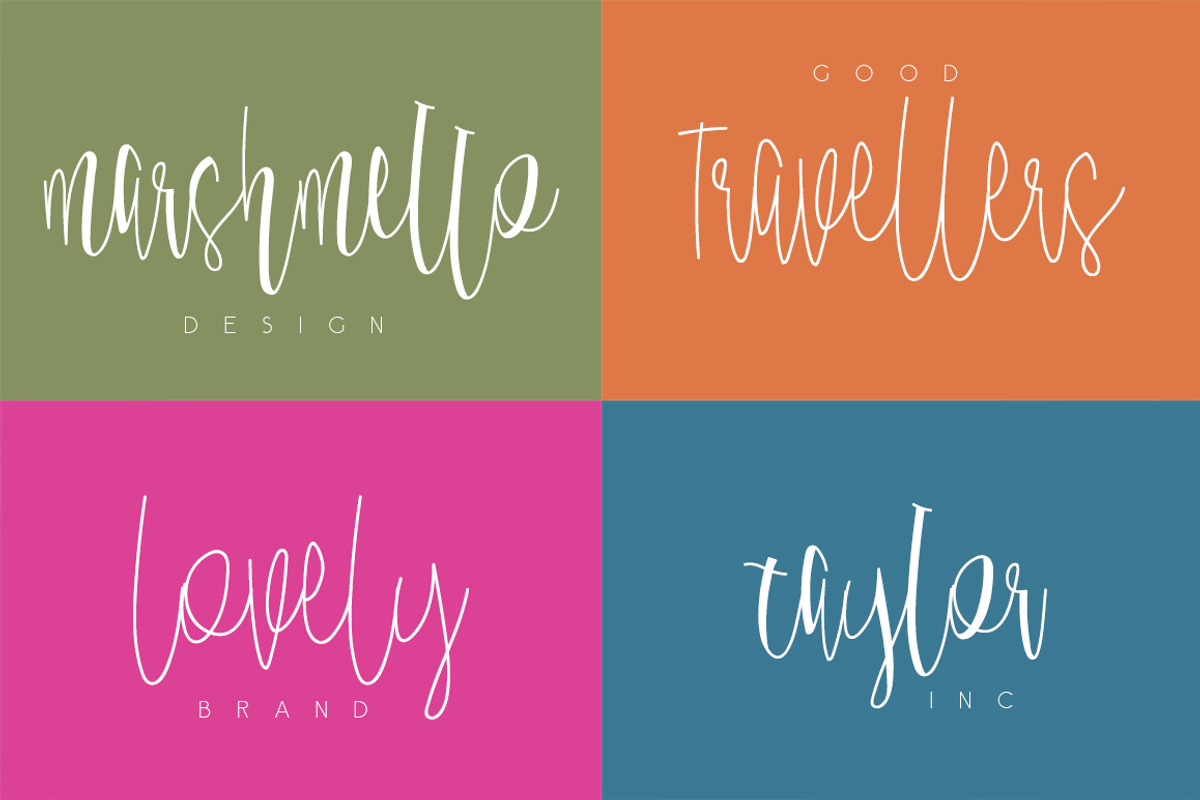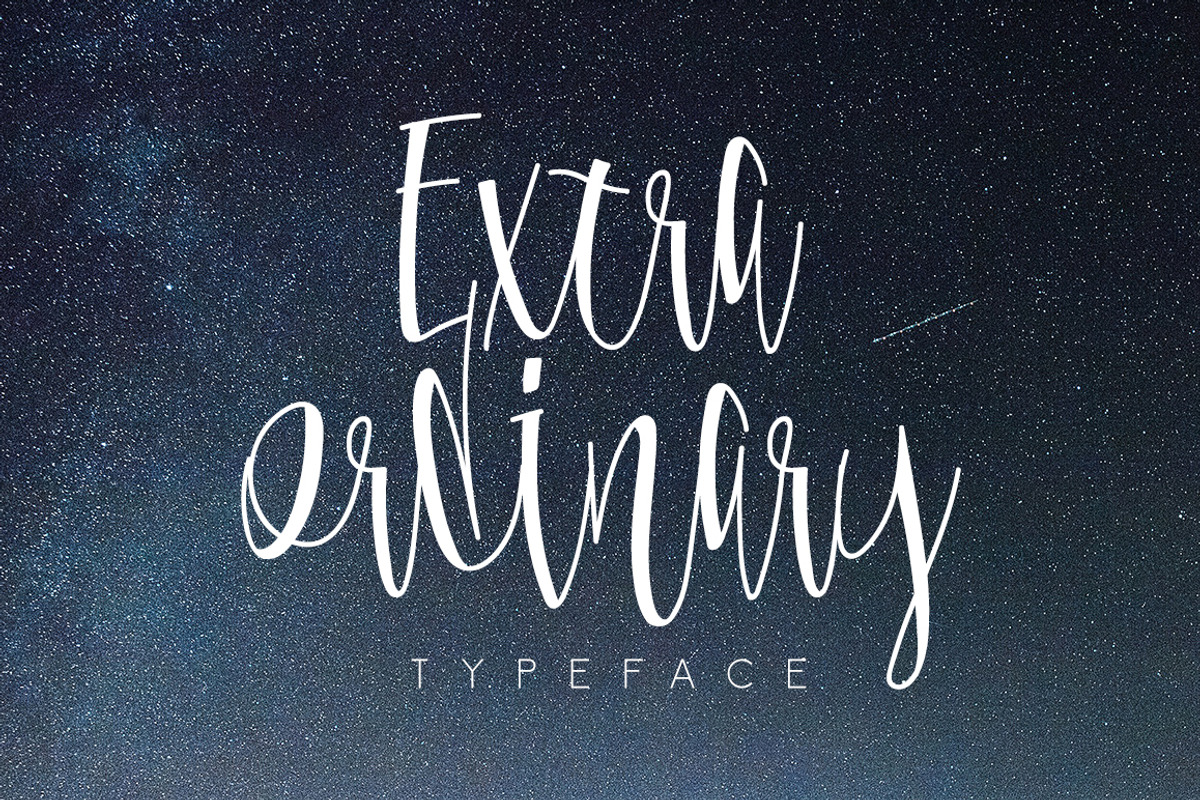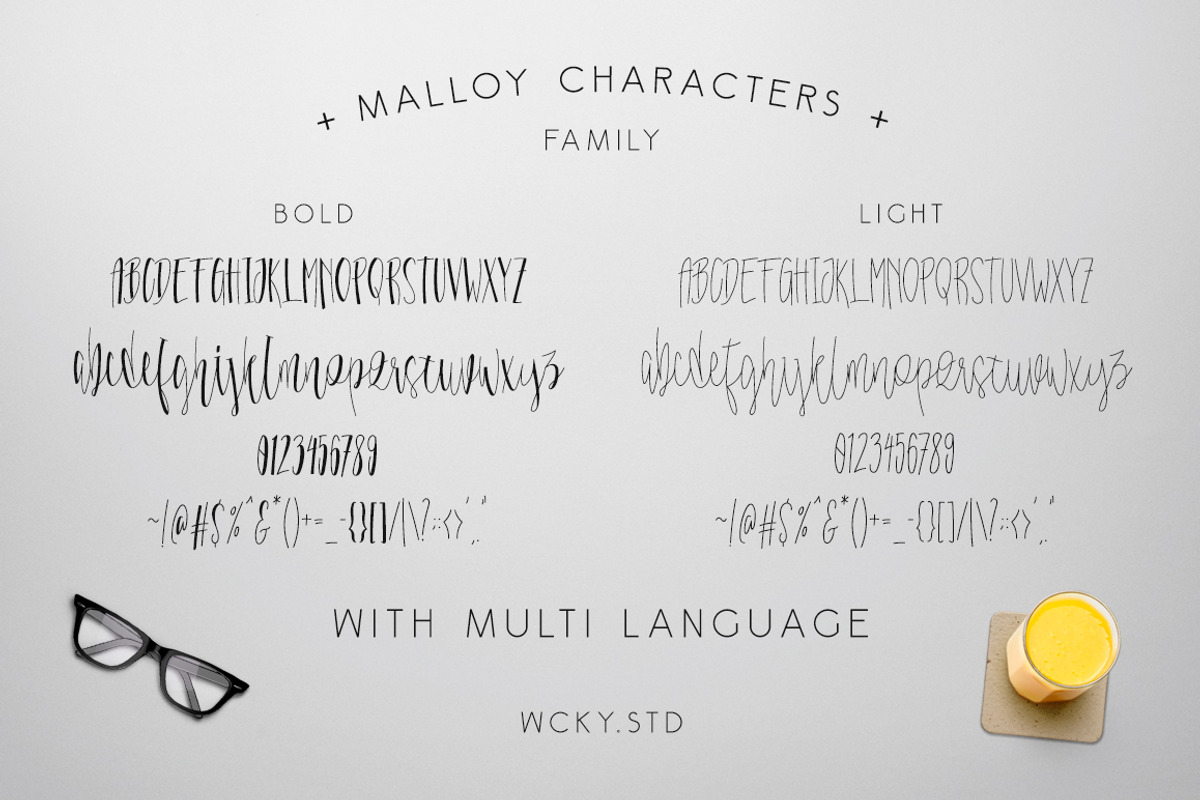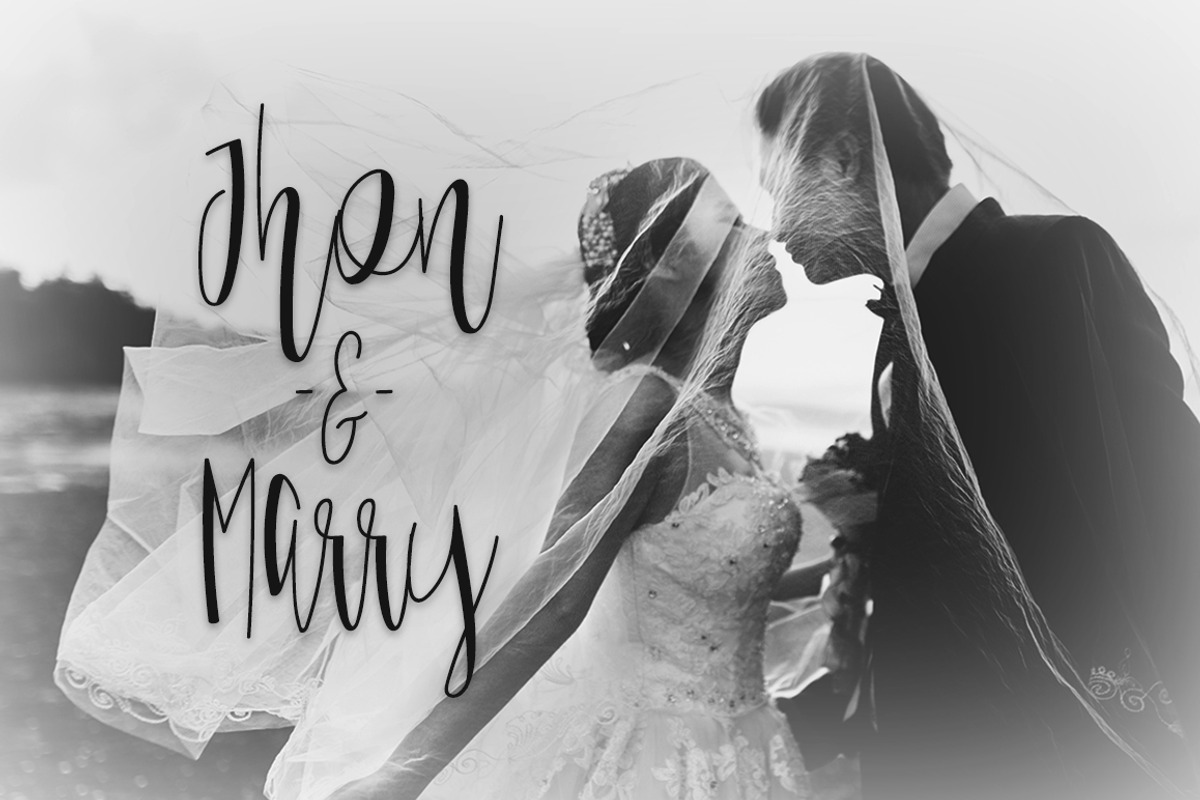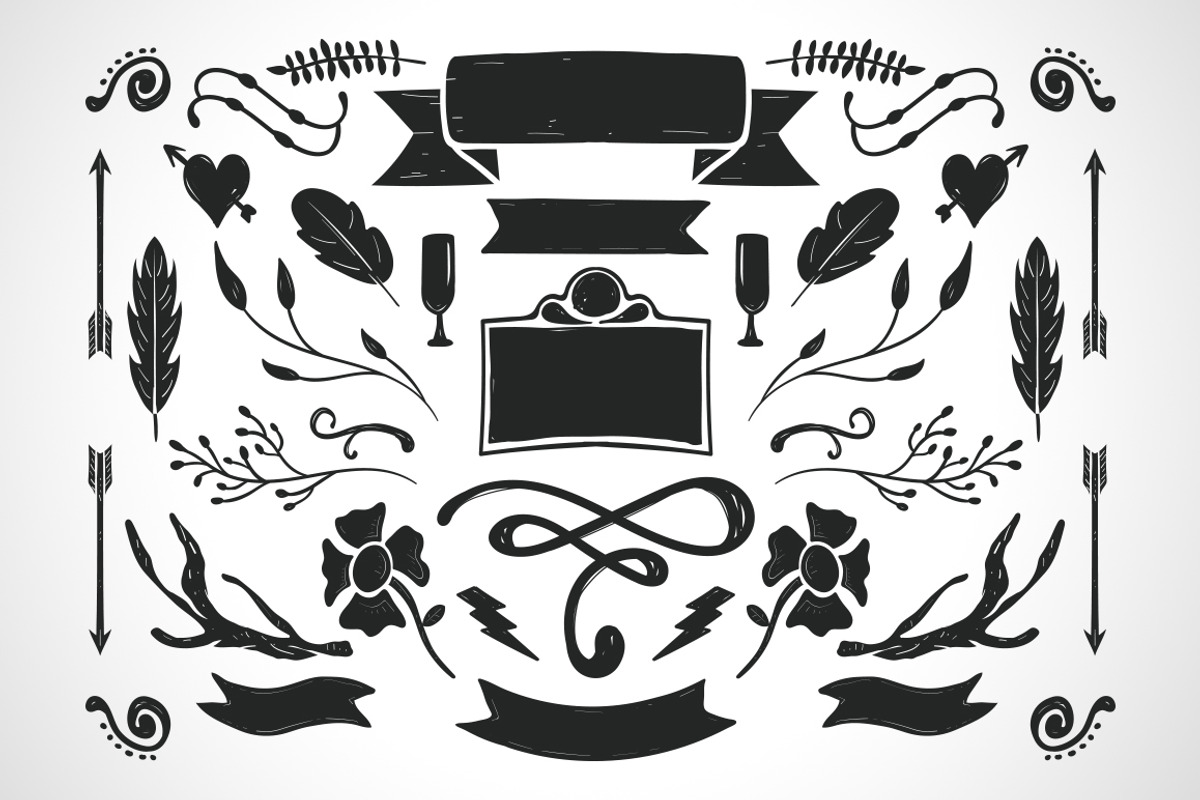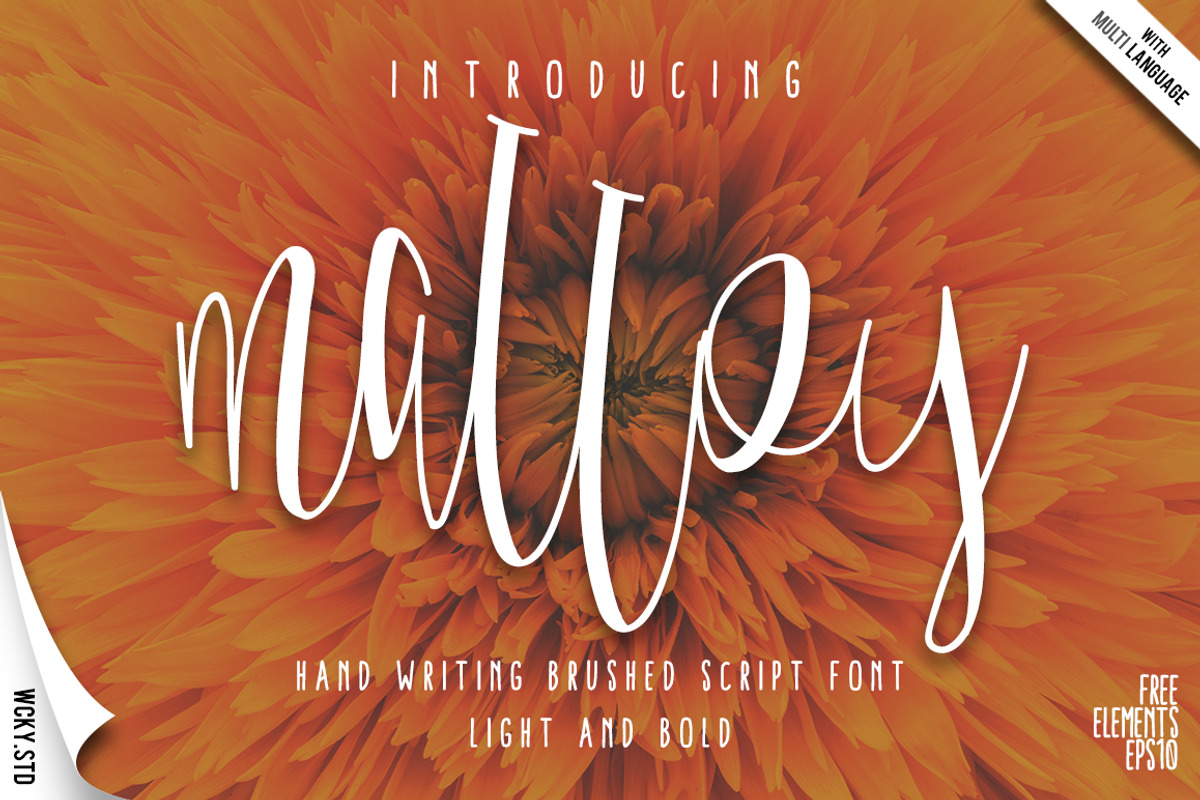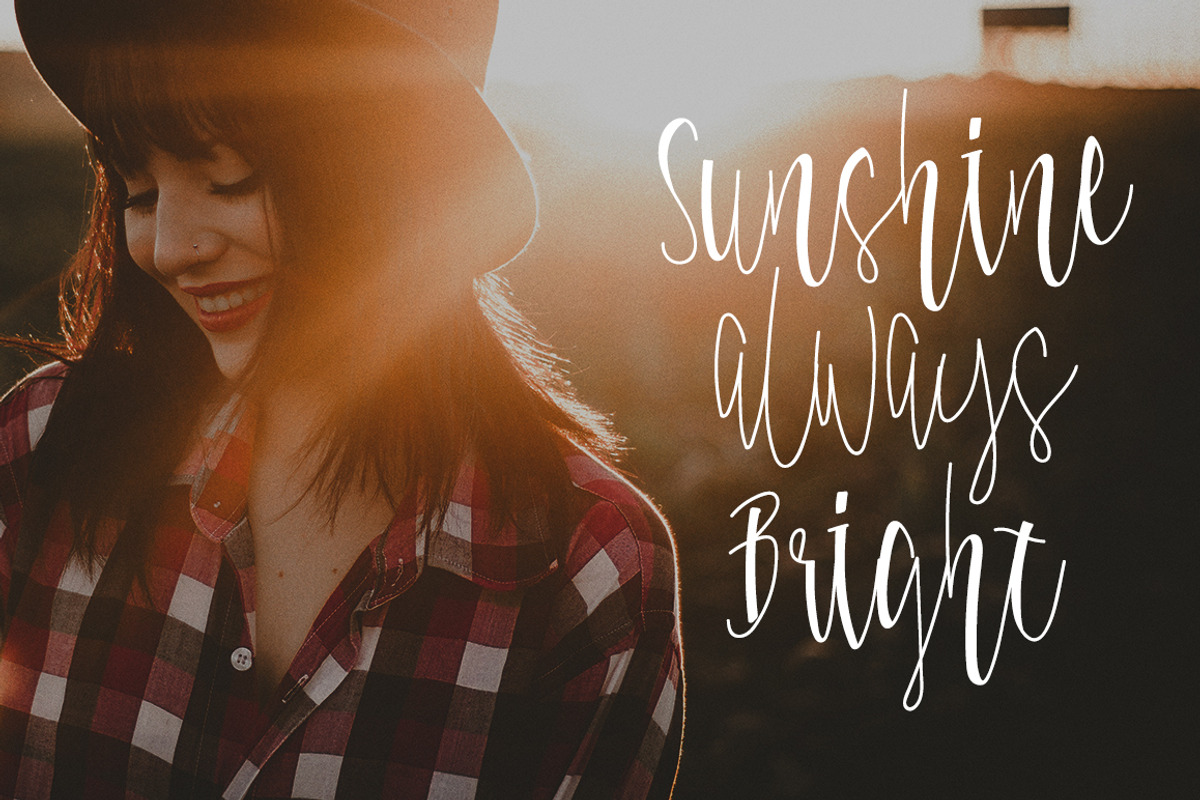
Malloy Font with Elements
Malloy Font with Elements by WCKY.STD is a font selected for branding, posters, packaging, typography.
- Malloy Light
- Malloy Bold
Malloy Font with Elements by WCKY.STD fits naturally into Branding, posters, packaging, typography.